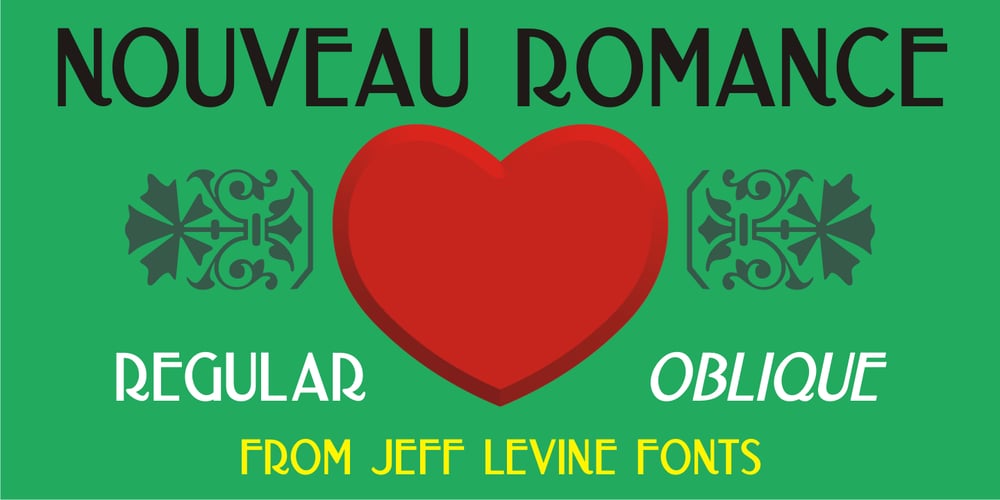
Nouveau Romance JNL Font Family was designed by Jeff Levine and published by Jeff Levine. Nouveau Romance JNL contains 2 styles and family package options. The hand lettered title on the sheet music for 1917’s “If They’d Never Take You from Me” was the basis for the Art Nouveau sans design of Nouveau Romance JNL. This elegant sans serif is available in both regular and oblique versions.